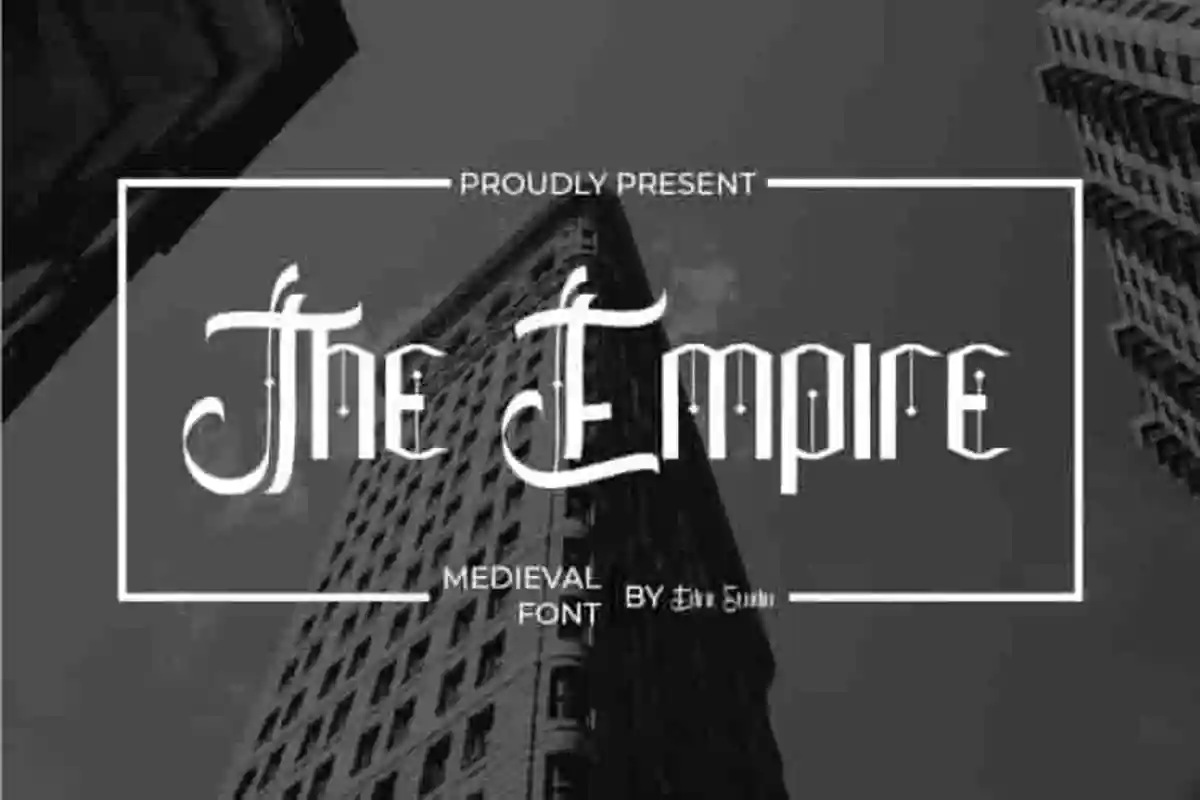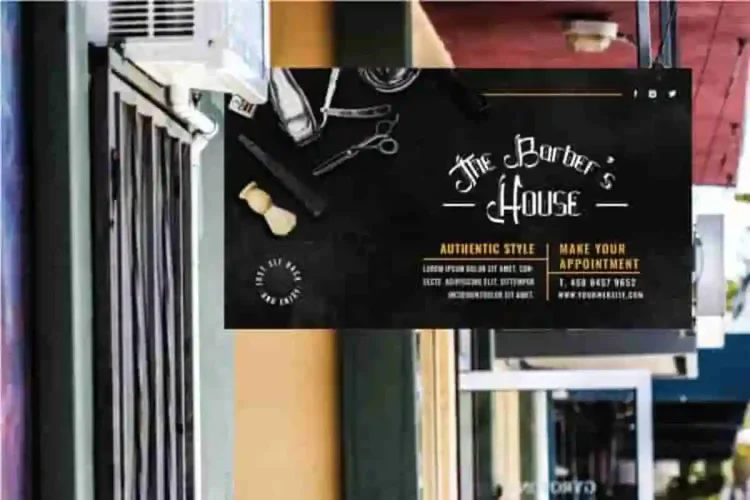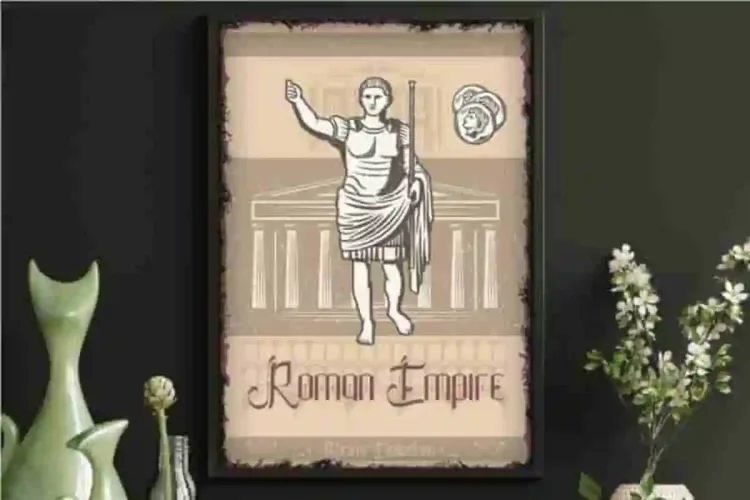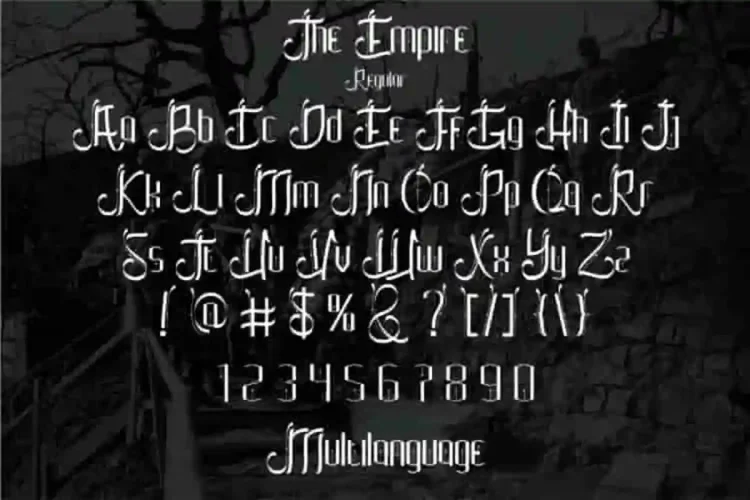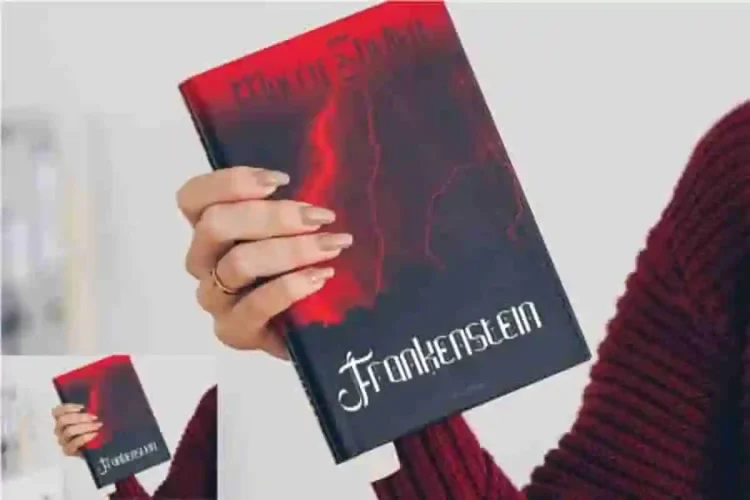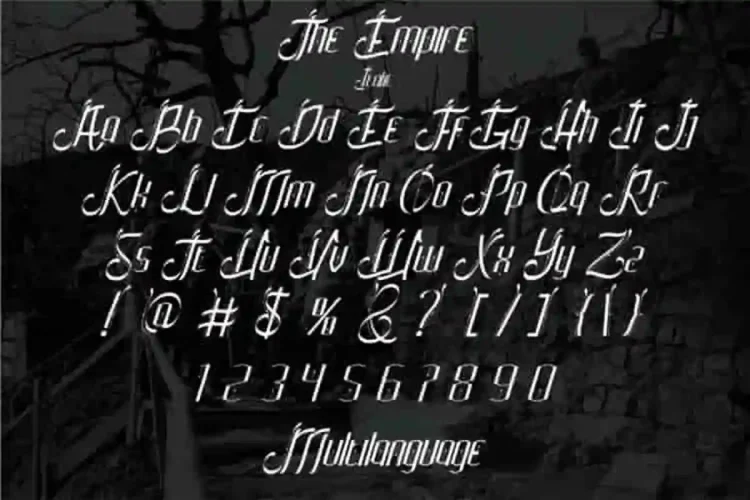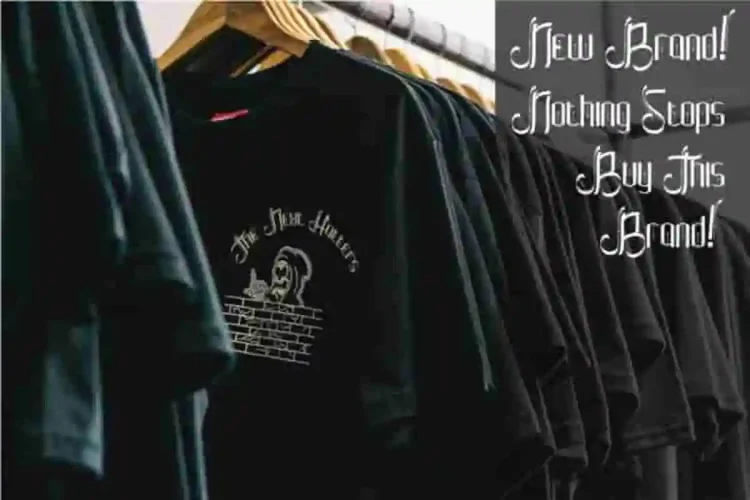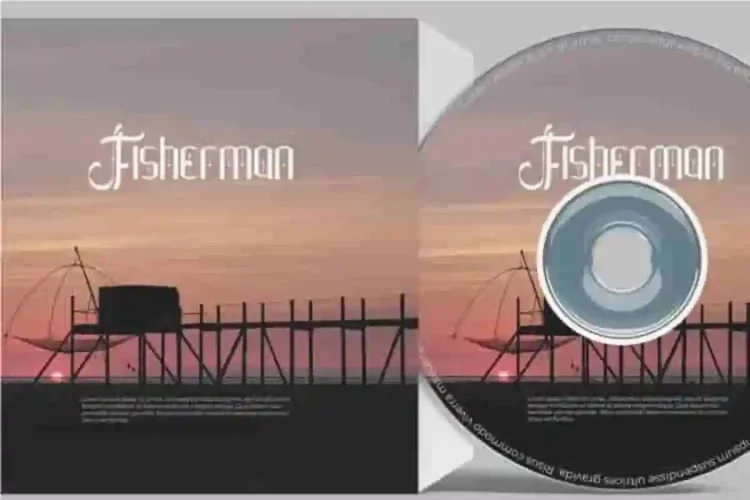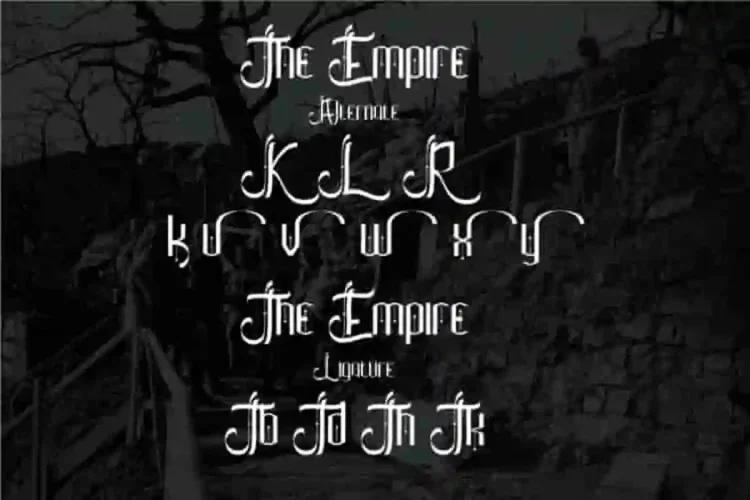
The Empire Medieval Modern Font
The Empire Medieval Retro Font is a stylish display font inspired from Medieval Era. It has beautiful, fresh, elegant, natural and stylish glyphs. The Empire Medieval Modern Retro Font  will be perfect for branding, logo, photography and headlines etc. With its fresh, elegant, natural, and artistic glyphs
The Empire Medieval Font  comes with two styles : regular and italic. The font works on PC & Mac with Simple installations. Accessible in the Adobe Illustrator, Adobe Photoshop, Adobe InDesign, even work on Microsoft Word. Plus, with PUA encoded characters, every glyph is easily accessible without the need for additional design tools.